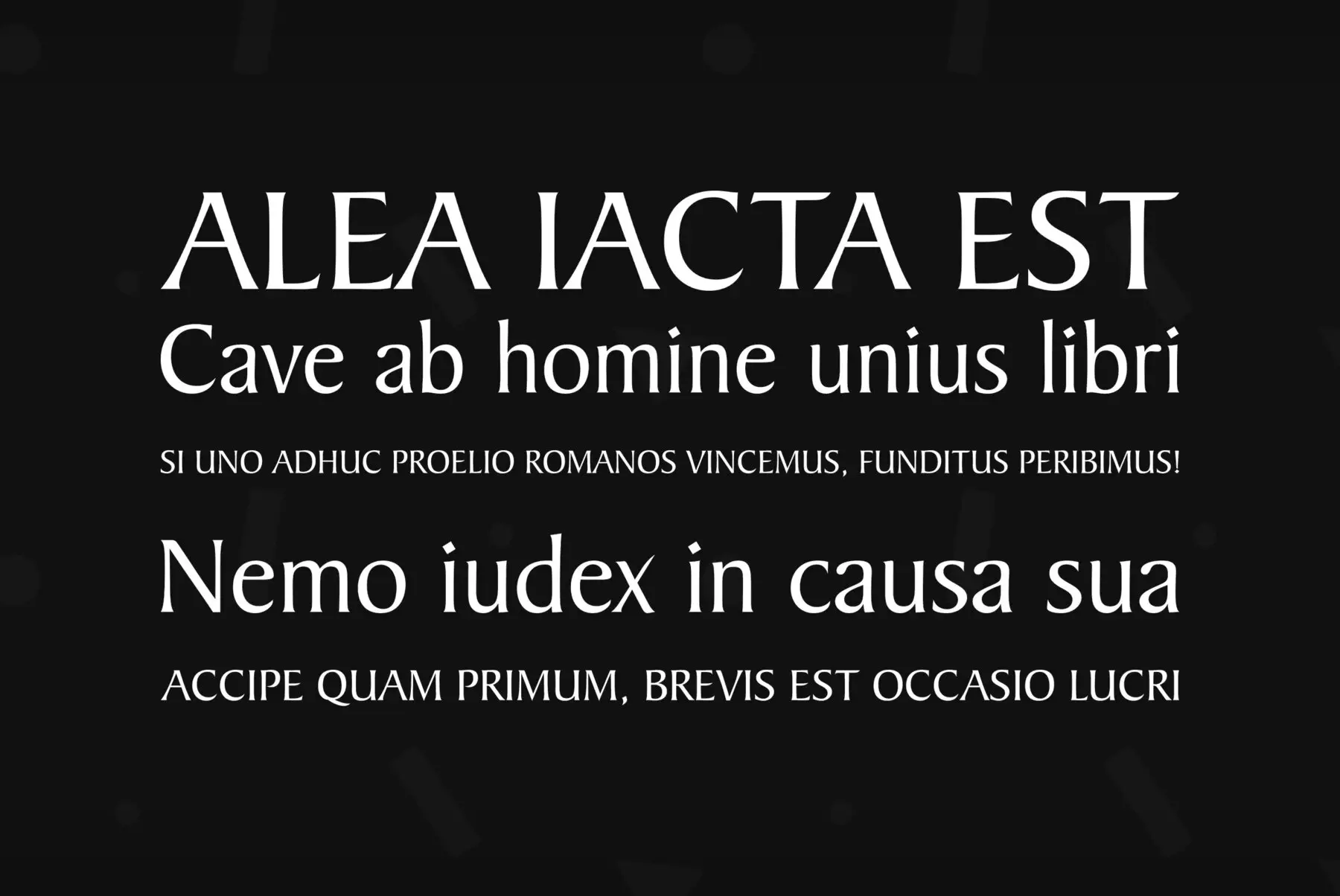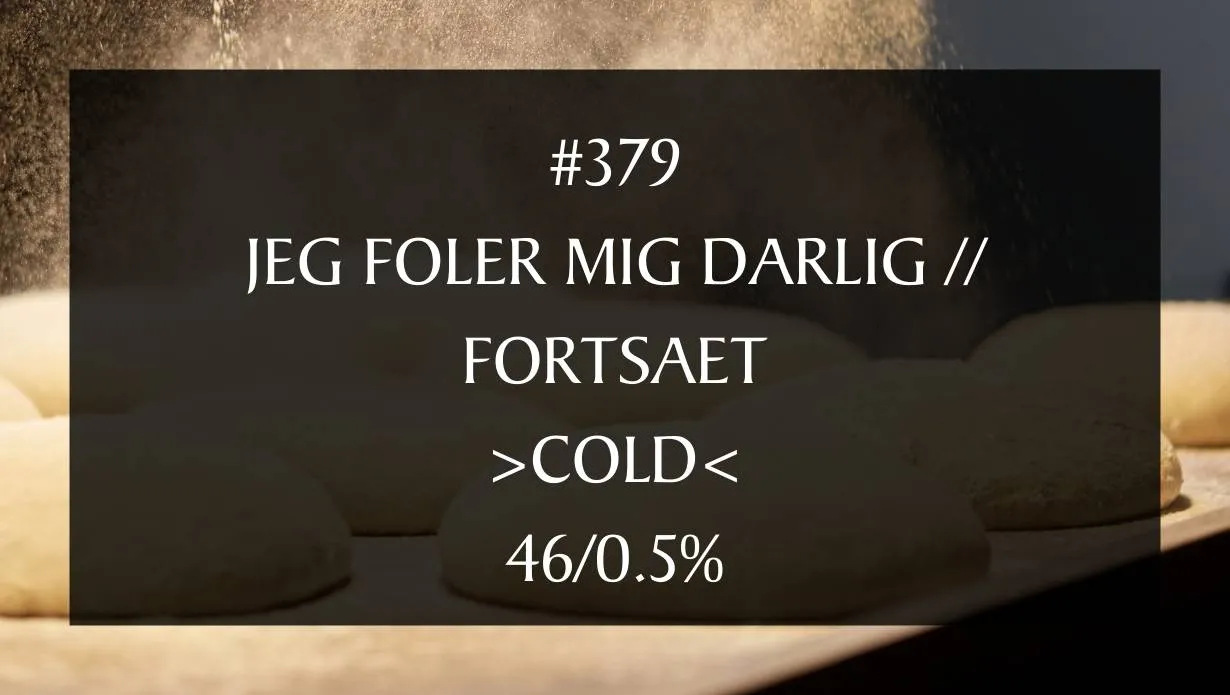
Baker Signet Font . Download—the font meta search engine with more than 50,000 font styles to find and order. Web baker signet font family was designed by published by arthur baker.
Web baker signet is the perfect font for all your fun designs. The font family is baker. A design on classical lines.
It also provides some background information about the history and. Web baker signet is a display font with calligraphic and roman influence, designed by arthur baker in 1965. The font family is baker. Web explore baker signet designed by evgeny sadko at adobe fonts.
Baker Signet Font - Web baker signet is the perfect font for all your fun designs. Web baker signet by arthur baker: Web a web page that showcases the use of baker signet, a typeface designed by arthur baker in 1965. Download—the font meta search engine with more than 50,000 font styles to find and order. It also provides some background information about the.
Baker Signet Font - Find out how to download, identify. Web baker signet by arthur baker: Web baker signet font family was designed by published by arthur baker. Web a web page that showcases the use of baker signet, a typeface designed by arthur baker in 1965. A design on classical lines.
Baker Signet Font - Web baker signet is the perfect font for all your fun designs. Web baker signet by arthur baker: Find out how to download, identify. Web about baker signet font family a design on classical lines with subtle but effective calligraphic touches, by arthur baker for vgc. Web baker signet is a display font with calligraphic and roman influence, designed by.
Baker Signet Font - Web about baker signet font family a design on classical lines with subtle but effective calligraphic touches, by arthur baker for vgc. Web baker signet is a display font with calligraphic and roman influence, designed by arthur baker in 1965. Find out how to download, identify. Baker signet contains 1 styles. Web a web page that showcases the use of.
Baker Signet Font - Web about baker signet font family a design on classical lines with subtle but effective calligraphic touches, by arthur baker for vgc. Web baker signet is a display font with calligraphic and roman influence, designed by arthur baker in 1965. It also provides some background information about the history and. A design on classical lines. Web baker signet is the.
Baker Signet Font - Find out how to download, identify. Web explore baker signet designed by evgeny sadko at adobe fonts. Web baker signet is a display font with calligraphic and roman influence, designed by arthur baker in 1965. Web about baker signet font family a design on classical lines with subtle but effective calligraphic touches, by arthur baker for vgc. Download—the font meta.
Baker Signet Font - Web baker signet by arthur baker: A serif typeface with 1 style, available from adobe fonts for sync. The font family is baker. Download—the font meta search engine with more than 50,000 font styles to find and order. Web explore baker signet designed by evgeny sadko at adobe fonts.
Baker Signet Font - Web baker signet is a display font with calligraphic and roman influence, designed by arthur baker in 1965. Web baker signet is the perfect font for all your fun designs. A serif typeface with 1 style, available from adobe fonts for sync. The font family is baker. Web baker signet font family was designed by published by arthur baker.
Baker Signet Font - It also provides some background information about the history and. A design on classical lines. Find out how to download, identify. Web explore baker signet designed by evgeny sadko at adobe fonts. Web about baker signet font family a design on classical lines with subtle but effective calligraphic touches, by arthur baker for vgc.
Baker Signet Font - Web about baker signet font family a design on classical lines with subtle but effective calligraphic touches, by arthur baker for vgc. A design on classical lines. A serif typeface with 1 style, available from adobe fonts for sync. It also provides some background information about the history and. The font family is baker.
Baker Signet Font - A design on classical lines. Download—the font meta search engine with more than 50,000 font styles to find and order. Web baker signet font family was designed by published by arthur baker. Web a web page that showcases the use of baker signet, a typeface designed by arthur baker in 1965. Web about baker signet font family a design on.
Baker Signet Font - Web a web page that showcases the use of baker signet, a typeface designed by arthur baker in 1965. Web baker signet is the perfect font for all your fun designs. Web about baker signet font family a design on classical lines with subtle but effective calligraphic touches, by arthur baker for vgc. Web baker signet by arthur baker: Find.
Baker Signet Font - Find out how to download, identify. Web baker signet is a display font with calligraphic and roman influence, designed by arthur baker in 1965. Web a web page that showcases the use of baker signet, a typeface designed by arthur baker in 1965. It also provides some background information about the history and. Download—the font meta search engine with more.